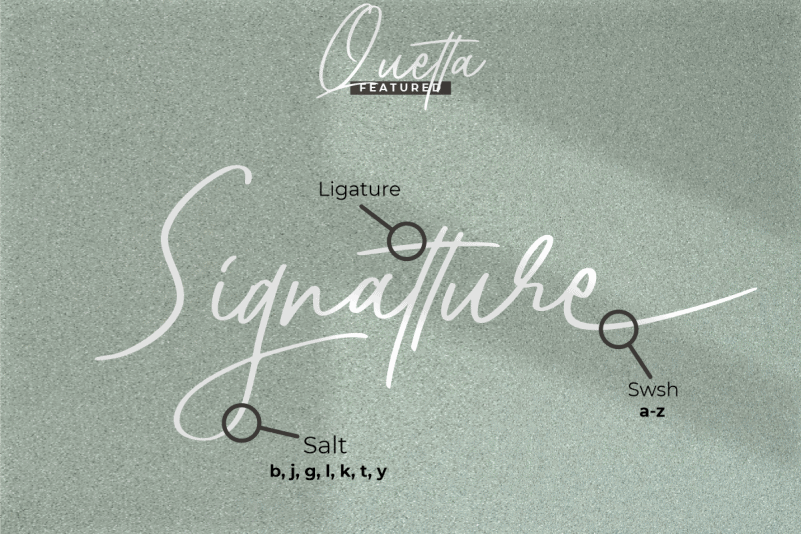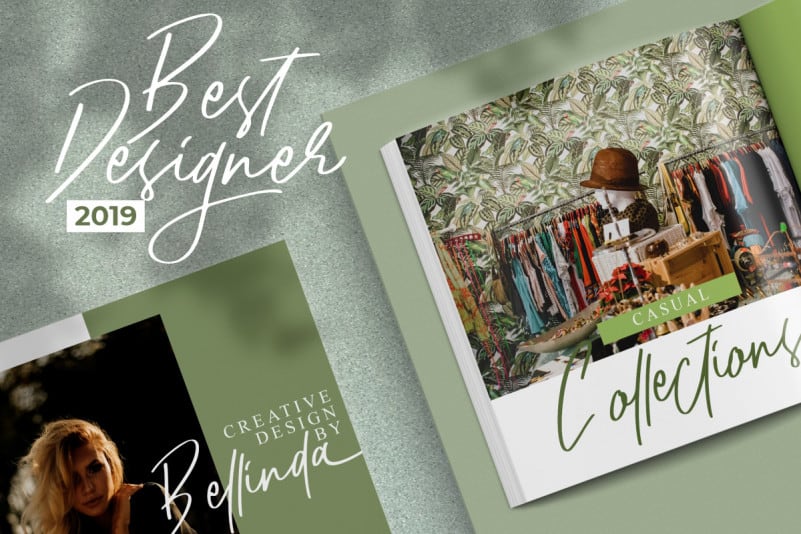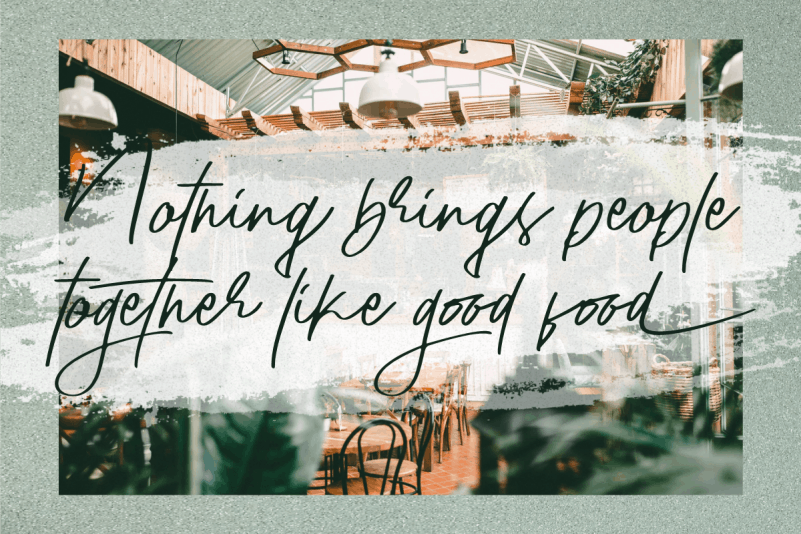
Quetta Signature Script Font
Quetta Signature Script Font is a casual signature style font, a beautiful signature font with natural line movements that make it classy and elegant. This signature font is perfect for cover, watermarks, branding, name, business cards, product, logos, etc.